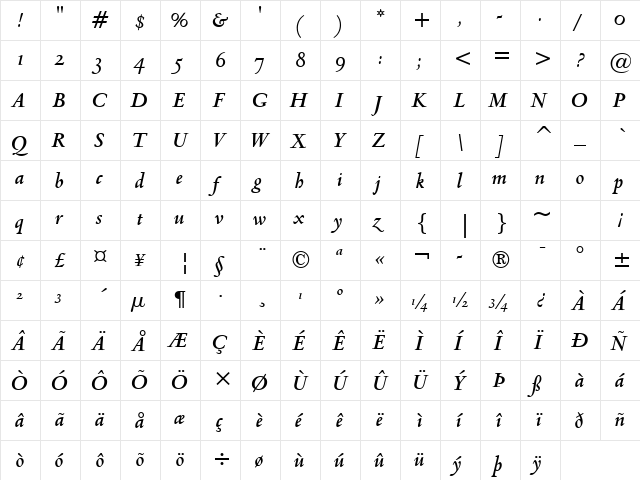
Venetian301 Bd BT Bold Italic
Design Context for Venetian301 Bd BT Typeface
Venetian301 Bd BT is a composed and adaptable typeface that performs quietly and consistently across a wide range of design contexts. Its italic angle brings a sense of urgency and motion to the letterforms. Its bold stroke weight gives it real presence on the page.
Pro Tip: Use Venetian301 Bd BT for emphasis, pull quotes, and subheadings where its slanted energy can add rhythm to the layout.